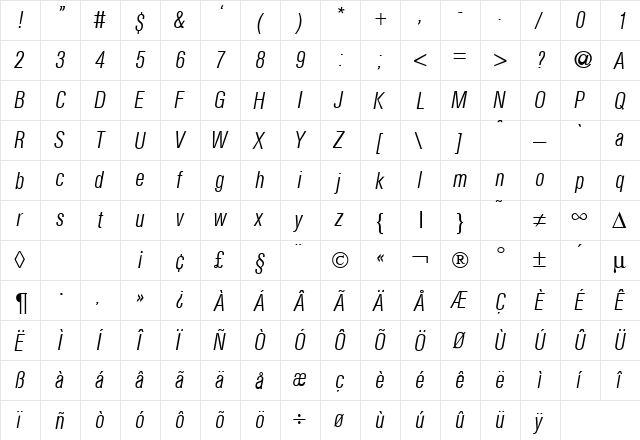
AtkinsCondLight RegularItalic Font Preview
Design Context for AtkinsCondLight Typeface
AtkinsCondLight is a composed and adaptable typeface that performs quietly and consistently across a wide range of design contexts. Its italic angle brings a sense of urgency and motion to the letterforms. Its slender proportions lend an understated elegance to any composition. Its narrow stance lets it pack a punch even in space-constrained designs.
Pro Tip: Try AtkinsCondLight for annotation and caption copy alongside an upright companion — the contrast in angle creates a dynamic but ordered typographic system.